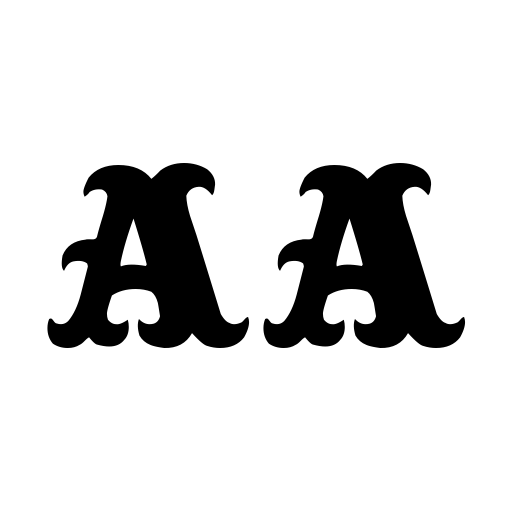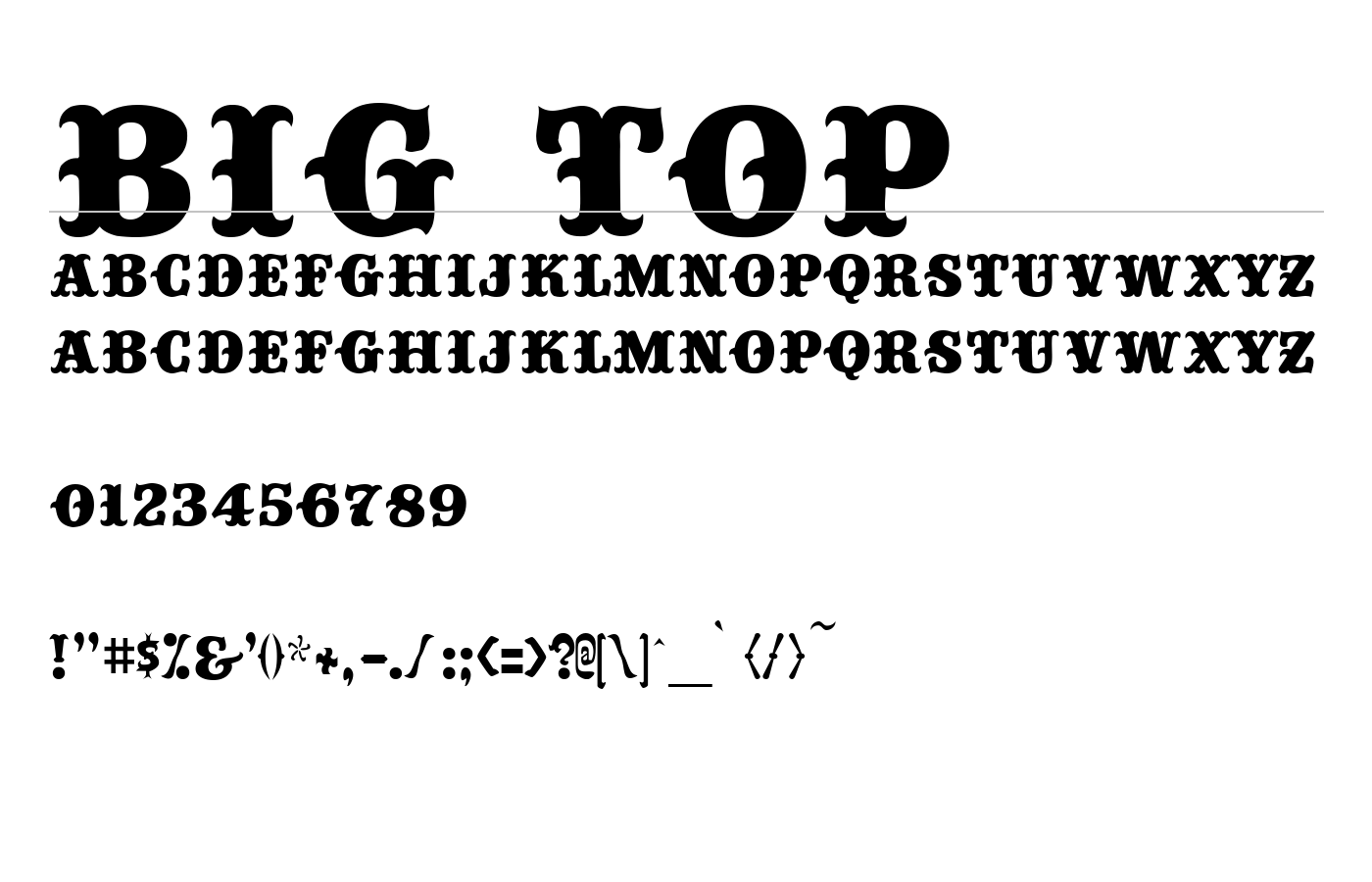
Big Top is a bold, decorative slab serif font with a vintage circus vibe, featuring thick, blocky letters with stylized, bracketed serifs and playful flourishes. Its heavy weight and compact structure make it ideal for eye-catching headlines, posters, and branding that aim to evoke a nostalgic, fun, and slightly theatrical atmosphere. This font works well for designs needing a strong, memorable impact with a touch of retro charm.
Big Top Font
About Big Top Font